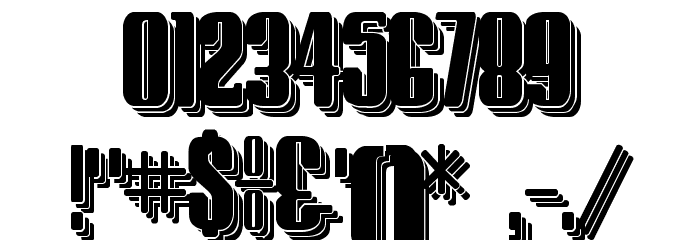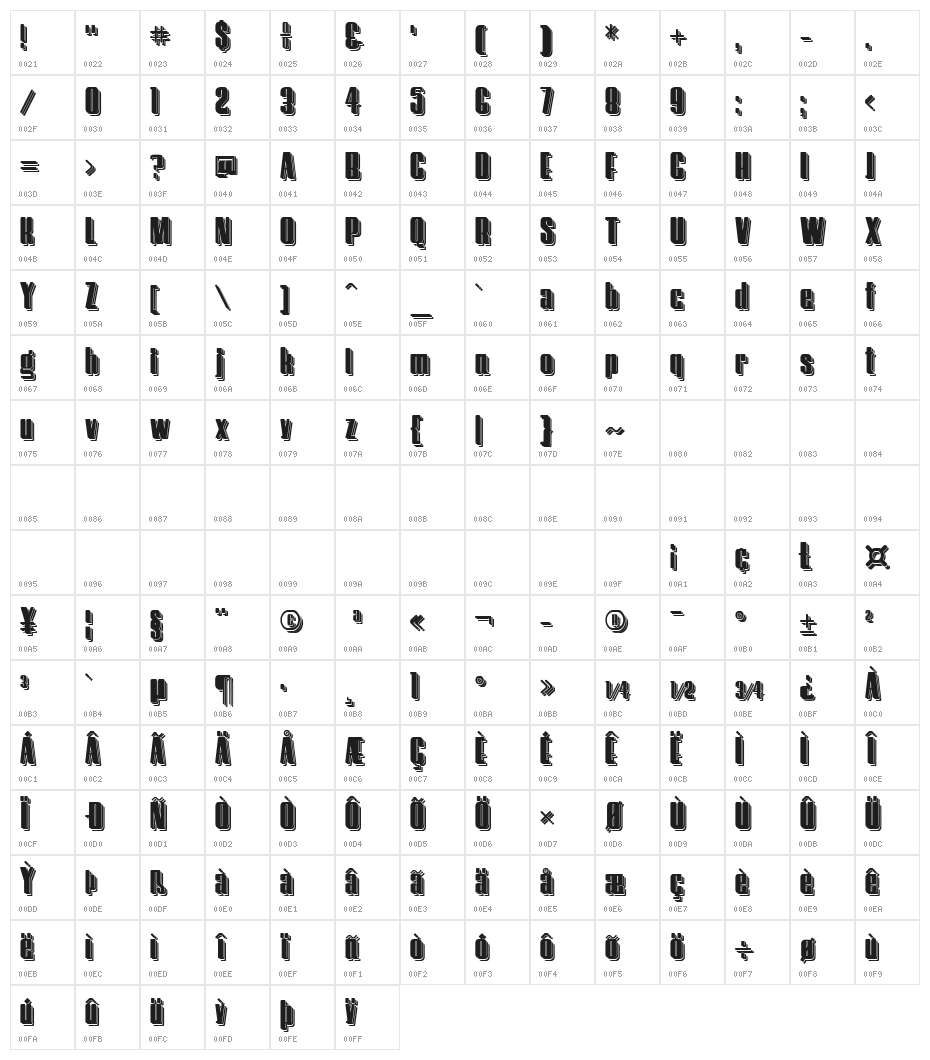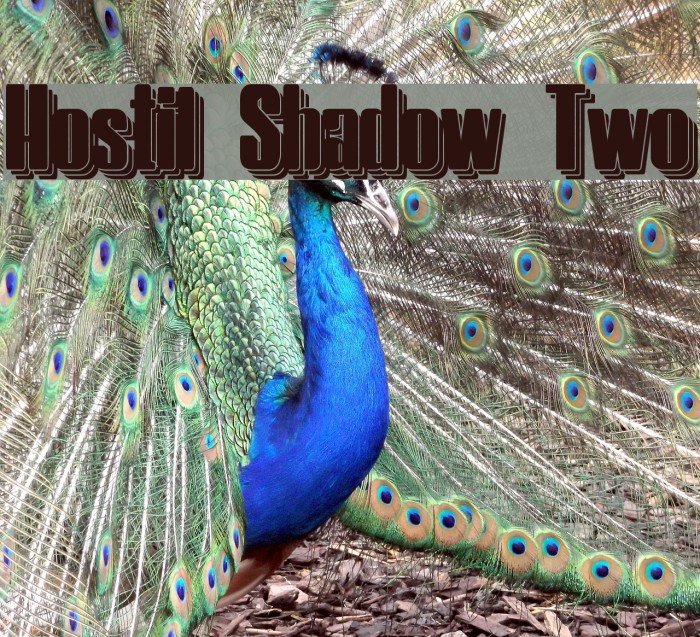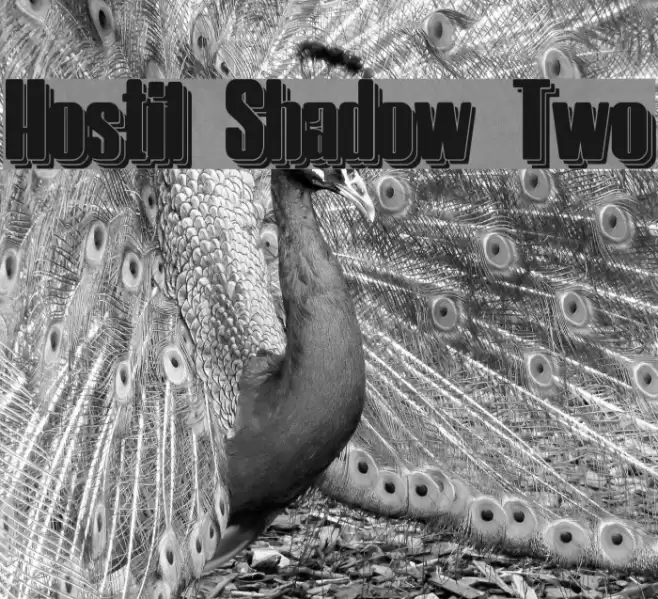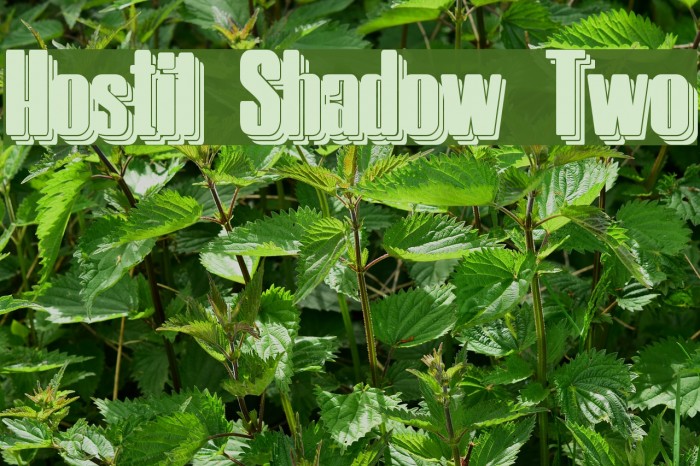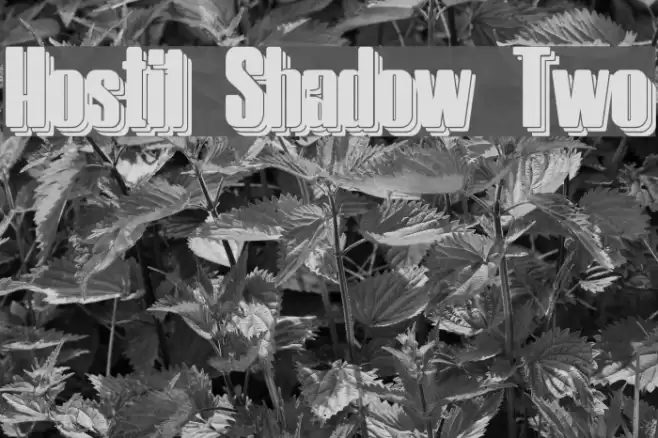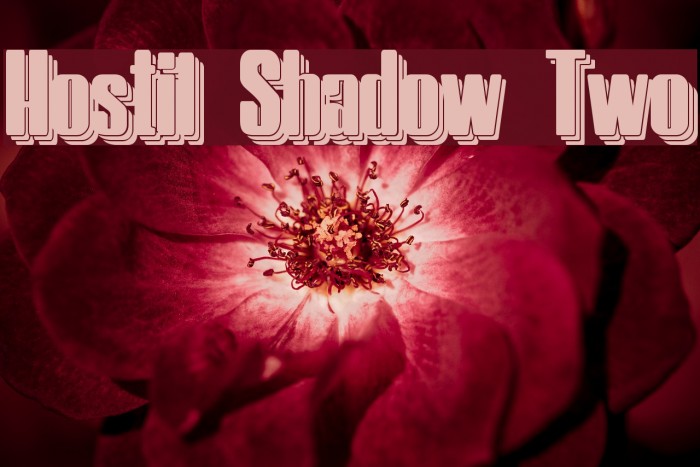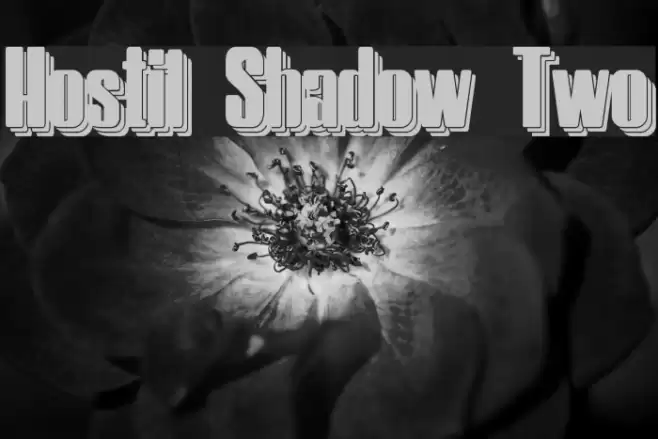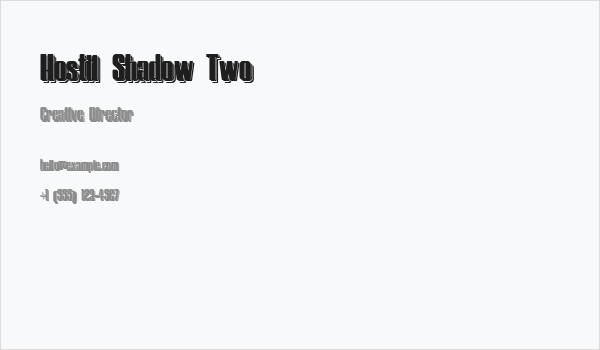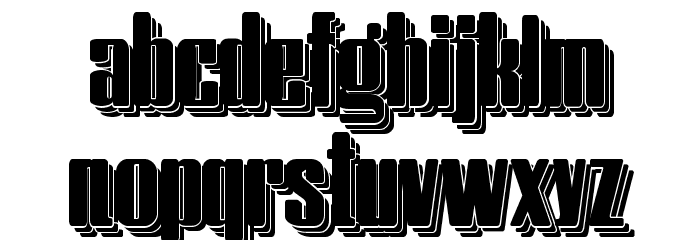
Hostil Shadow Two Font
Hostil Shadow Two Description
This font features a bold, shadowed style that creates a striking three-dimensional effect. The characters are thick and blocky, with a consistent shadow that adds depth and a sense of movement. The uppercase and lowercase letters maintain a uniform width, while the numbers and special characters follow the same bold design. The font's strong presence makes it ideal for attention-grabbing headlines and titles. Its decorative nature is enhanced by the shadow effect, which gives it a modern and edgy feel, suitable for projects that require a bold statement.